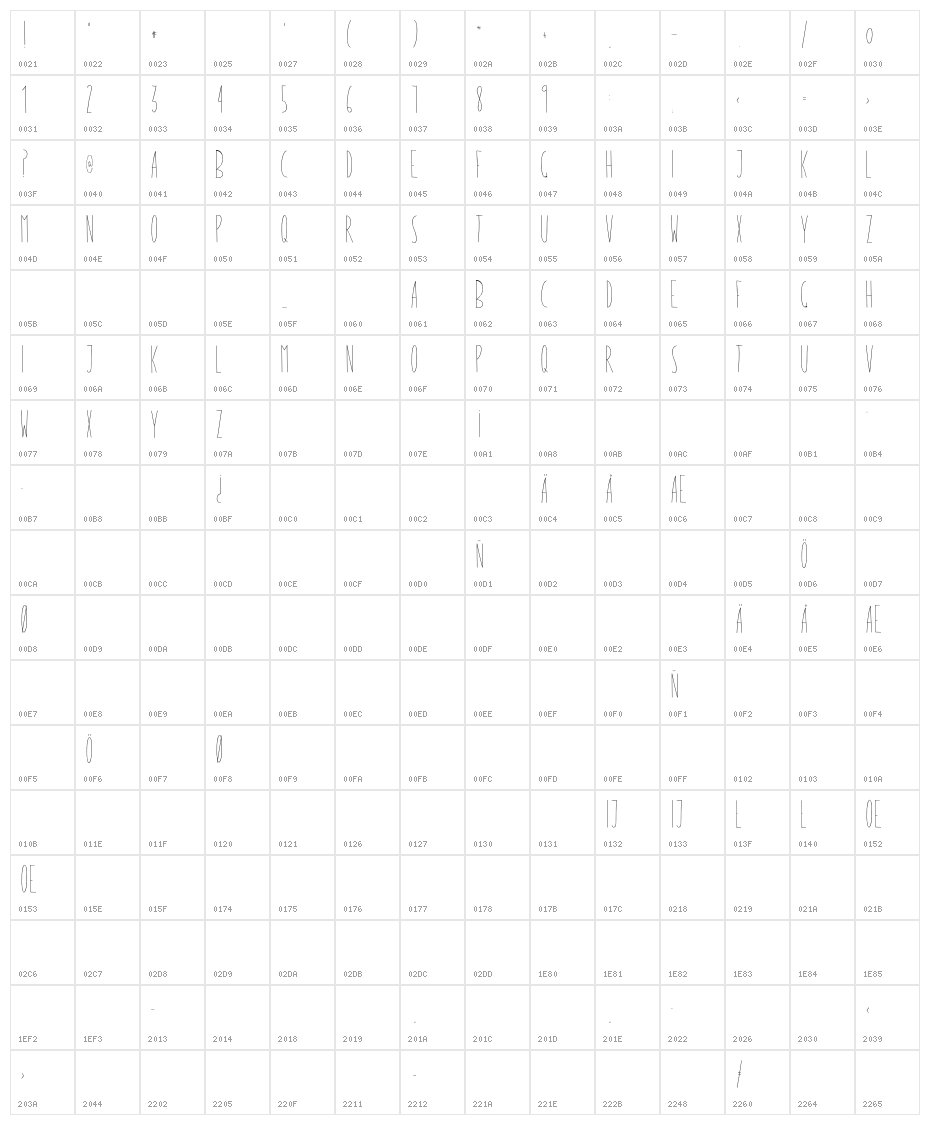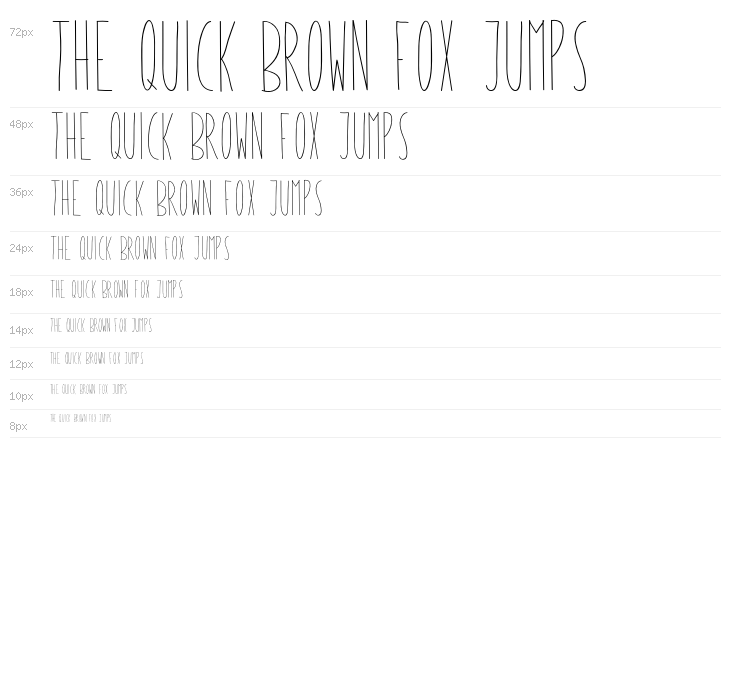
Fab Craft Font
Fab Craft Description
This font features a tall, slender design with elongated characters that exude a sense of elegance and modernity. The strokes are thin and consistent, providing a clean and minimalistic appearance. The uppercase and lowercase letters maintain a uniform height, contributing to a cohesive look. The numerals are similarly styled, ensuring readability while maintaining the font's sleek aesthetic. Special characters are included, with a focus on maintaining the overall thin and elongated style. This font is ideal for projects that require a sophisticated and contemporary touch.
| Proposed Projects | Ideal for fashion magazines, luxury branding, minimalist posters, and modern web design. |